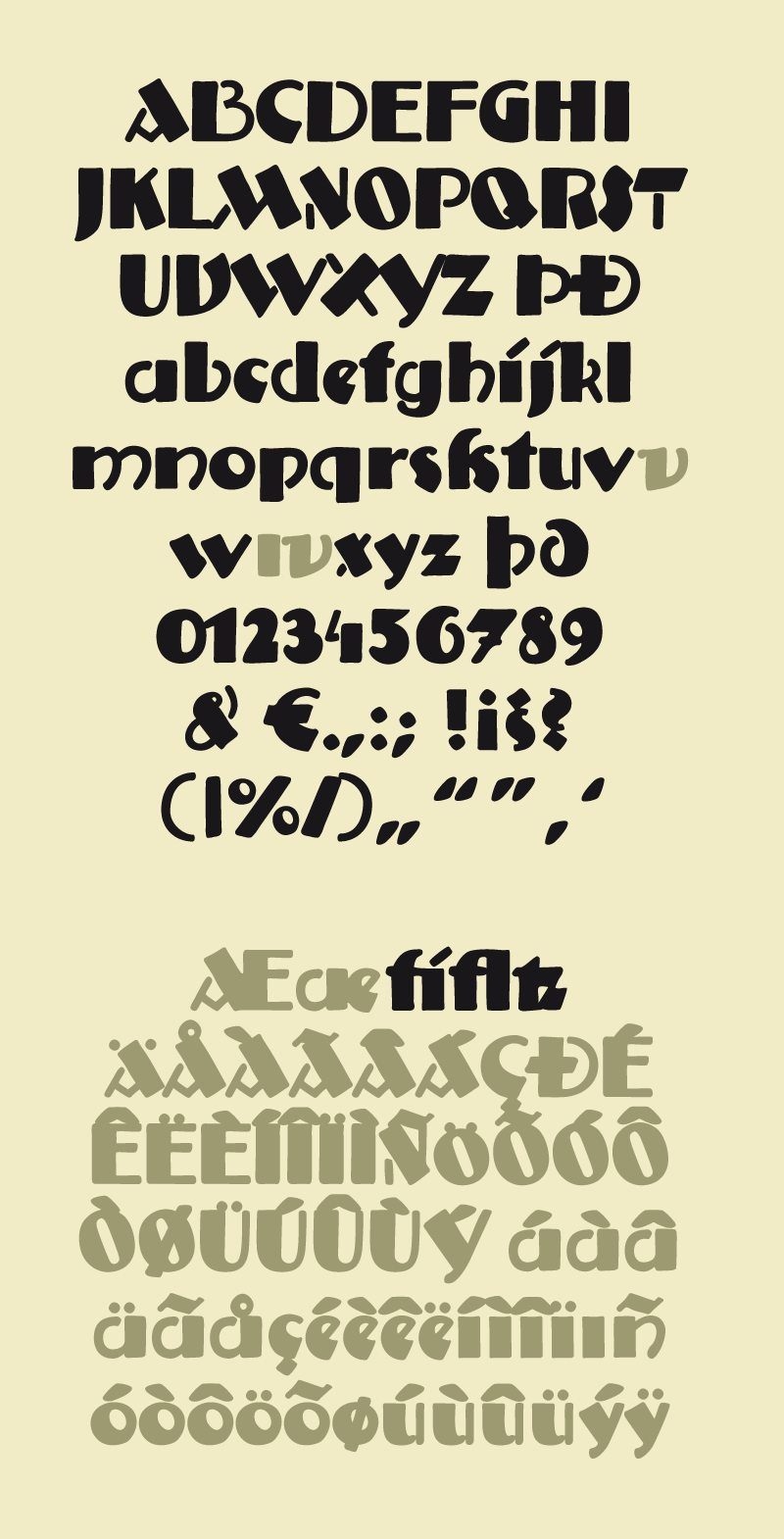
Semi-bold, decorative poster type in the style of Art Deco. At ingoFonts all fonts can be downloaded. Gratis. Free. Here's the catch: The files offered here to download contain only a reduced font. That means, the font only consists of uppercase and lowercase from A to Z or rather, a to z. The complete font including numerals, umlauts, punctuation and especially ligatures is only available with your order and your cash. |